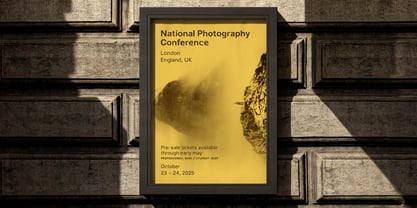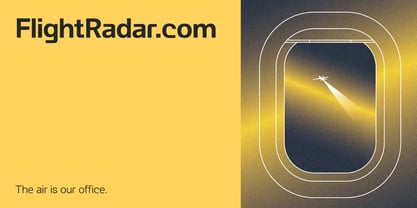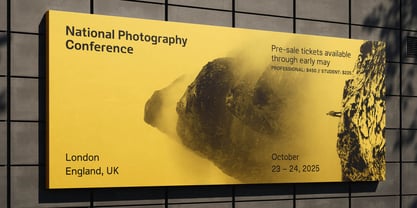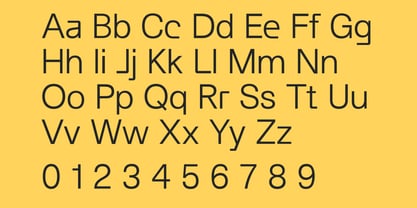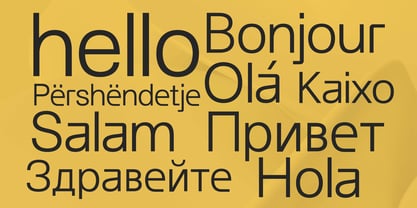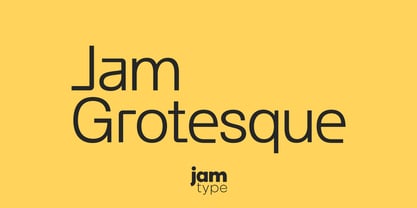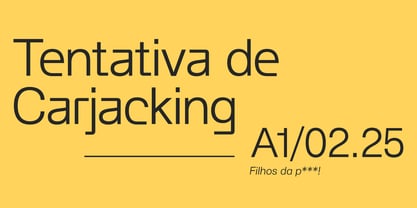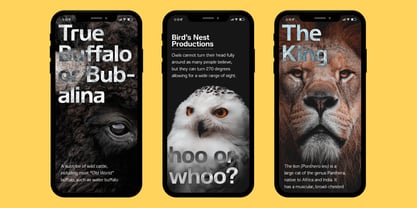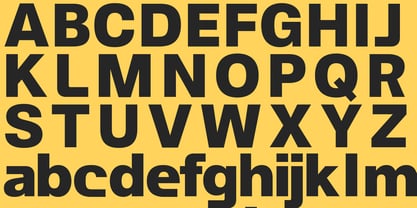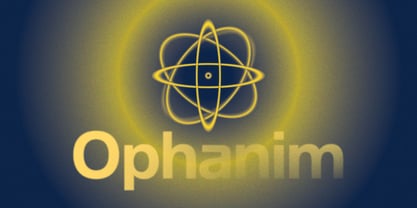
Jam Grotesque ALT
Die Schriftfamilie Jam Grotesque ALT wurde von João Symington entworfen und von JAM Type Design veröffentlicht. Jam Grotesque ALT enthält 14 Stile und Familienpaketoptionen.
Jam Grotesque Alt – A Modern Evolution of a Timeless Sans Serif
Building upon the foundation of Jam Grotesque, Jam Grotesque Alt introduces a fresh, modern take on the classic sans serif form. Retaining the clean, functional aesthetic of the original, this refined adaptation brings subtle contemporary refinements, making it even more versatile for today’s design landscape.
With streamlined proportions, enhanced letterforms, and a refined rhythm, Jam Grotesque Alt balances precision and warmth, making it ideal for branding, editorial design, UI/UX, and digital experiences. Whether in print or on screen, its polished structure ensures clarity, impact, and effortless readability at any scale.
Designed for modern creatives and brands, Jam Grotesque Alt delivers a sleek, forward-thinking alternative while maintaining the essence of a timeless grotesque. Perfect for those who appreciate heritage with a contemporary edge, this type family is a powerful addition to any typographic toolkit.
Experience the evolution of simplicity with Jam Grotesque Alt – where classic form meets modern refinement.